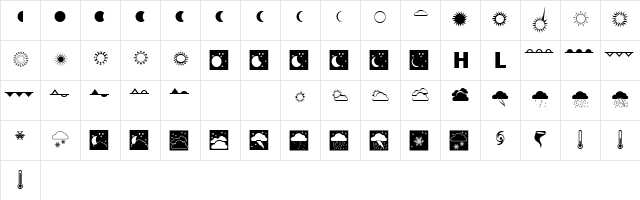
WeatherFont Regular
Design Context for WeatherFont Typeface
WeatherFont is a composed and adaptable typeface that performs quietly and consistently across a wide range of design contexts.